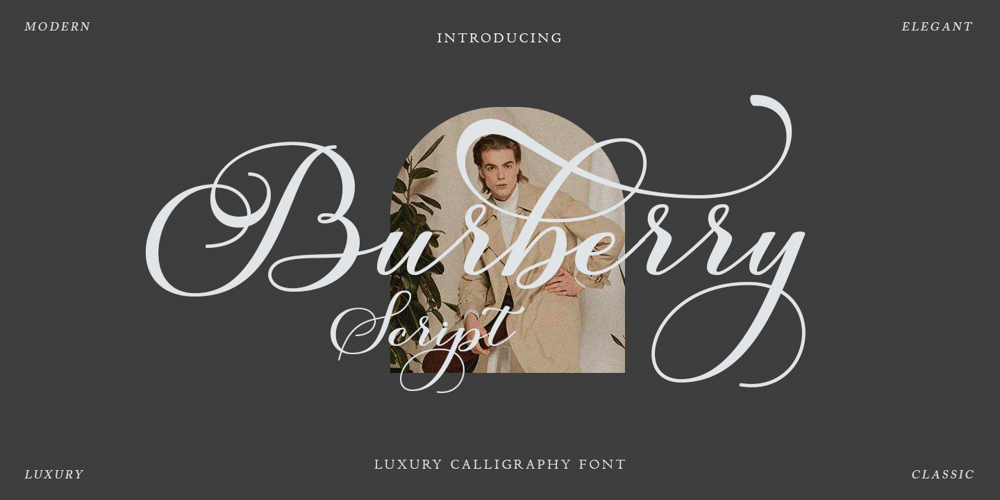
Burberry Script Font Family was designed by Has Rizal and published by Hrz Studio. Burberry Script contains 1 styles and family package options. Burberry is a Script calligraphy font, Burberry is handcrafted with copper plate stylus and features opentype with pua encode, Burberry is a Script Calligraphy includes alternatives, style sets, ligatures, and swashes, Each lowercase glyph has a stylised styling, Swiss is perfect for branding , wedding invitations and cards or quotes.In order to use beautiful swashes, you need a program that supports OpenType features such as Adobe Illustrator CS, Adobe Photoshop CC, Adobe Indesign and Corel Draw. Swash is called alternate style. For example, the letter “a” with ss.01 and a closing swash is an alternate style for “a”. To access you need it, you need to open the Glyphs panel.Photoshop has a glyph panel where you can find alternatives and ligatures. Select the Beloved Gray font and open the Glyphs Window and double click on the glyph you want to use. To open from Illustrator, please follow: Window –Types –Glyphs.Thank you and have a nice day